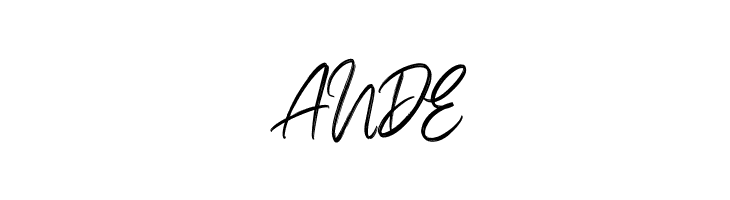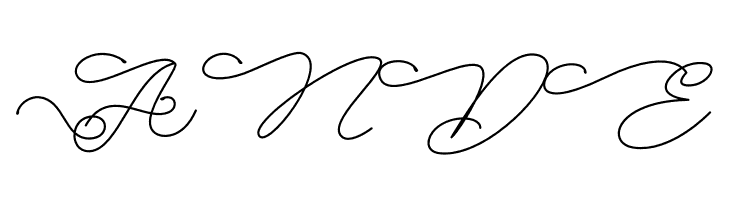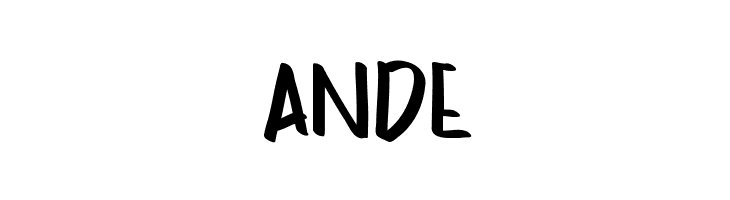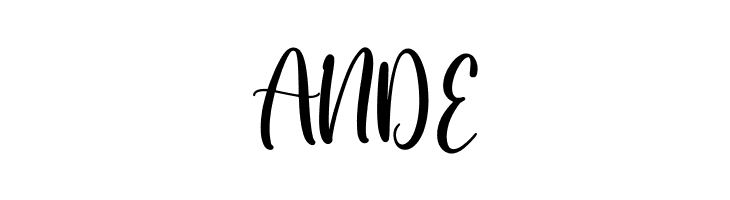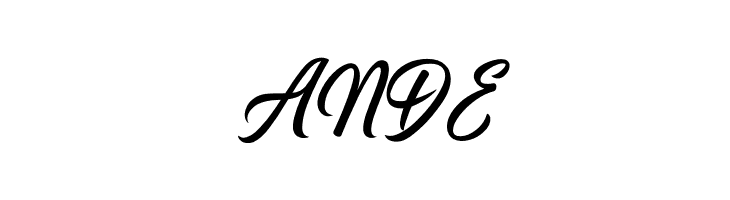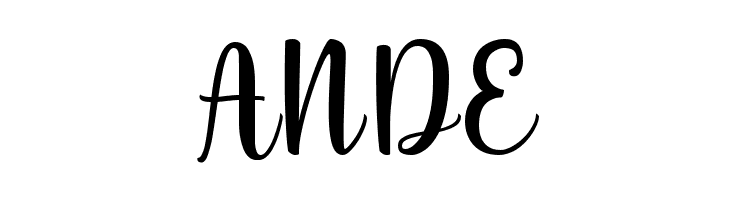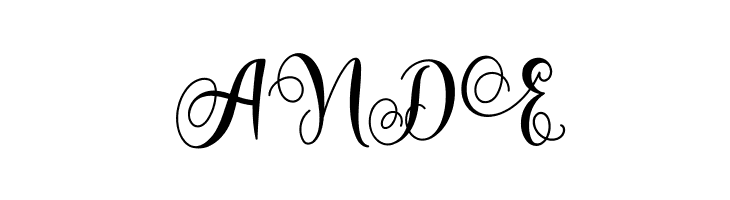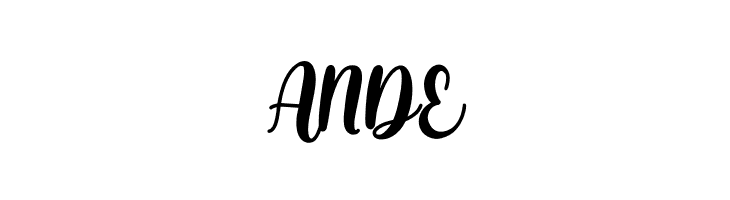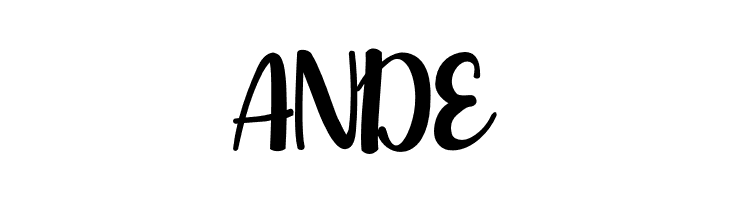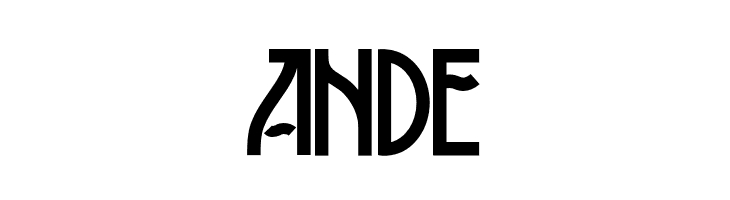
A dynamic and expressive handwritten font with fluid strokes and playful curves.
A playful, handwritten script font with dynamic strokes and tight spacing.
A lively, handwritten script font with medium contrast and elegant flourishes.
A lively, cursive script font with medium contrast and a hand-drawn feel.
An elegant script font with flowing, cursive style and intricate loops.
A bold, playful handwritten font with flowing, energetic letterforms.
A playful and elegant script font with a hand-drawn appearance.
A modern, cursive font with interconnected, flowing letters.
A bold, modern script font with elegant curves and smooth connections.
A bold, playful handwritten font with rounded, casual letterforms.
An elegant and sophisticated script font with intricate swirls and flowing curves.
A playful and elegant script font with flowing, cursive letters and modern swashes.
A flowing, cursive font with elegant, connected letters and a handwritten style.
A bold, geometric font with dynamic and stylized characters.
A bold, modern font with geometric and angular design elements.
An elegant and flowing script font with ornate, cursive strokes.
A whimsical, elegant cursive font with a hand-drawn appearance.
A bold, playful script font with smooth, flowing curves.
A bold, cursive font with fluid, connected characters and smooth curves.
A bold, cursive script font with a dynamic and flowing style.
A sophisticated script font with flowing, connected strokes and elegant flourishes.
A lively, expressive handwritten font with fluid, dynamic strokes.
An elegant, flowing script font with bold, cursive strokes.
An elegant, flowing script font with interconnected, cursive letterforms.
A graceful, cursive script font with elegant, flowing strokes.
An elegant script font with flowing, cursive style and delicate swirls.
A playful and elegant script font with decorative swashes and flourishes.
A lively, flowing script font with an elegant handwritten style.
A lively and flowing script font with elegant curves and a personal touch.
A lively, flowing script font with elegant cursive letterforms.
An elegant, cursive font with fluid, interconnected strokes.
A graceful, cursive script font with a handwritten signature style.
A lively and expressive handwritten font with fluid, varied strokes.
A playful and bold font with rounded, slightly irregular letterforms.
A fluid and elegant handwritten script with dynamic movement.